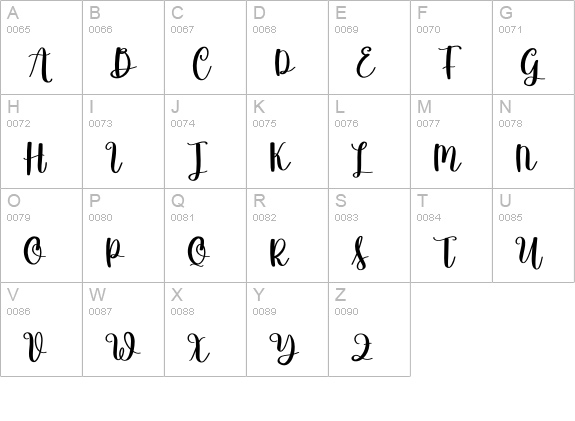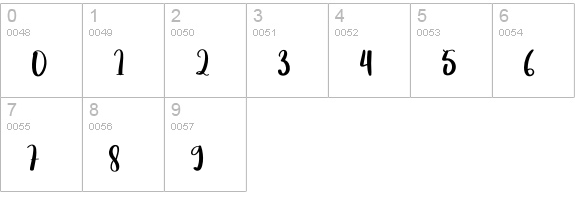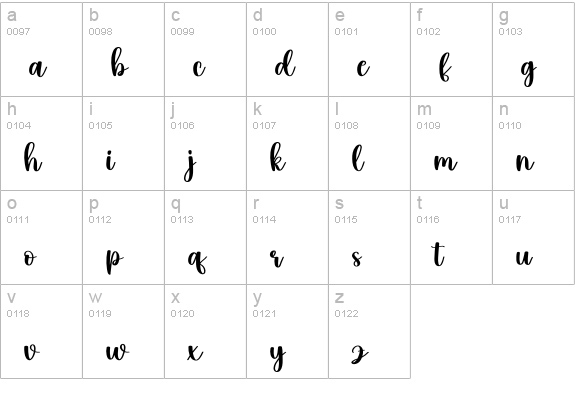
Saturnus Font Details
Saturnus font is a stunning display typeface that exudes elegance and sophistication. With its sleek lines and modern aesthetic, this font is perfect for adding a touch of class to any design project. Whether used for headlines, branding, or print materials, Saturnus font is sure to make a bold statement.